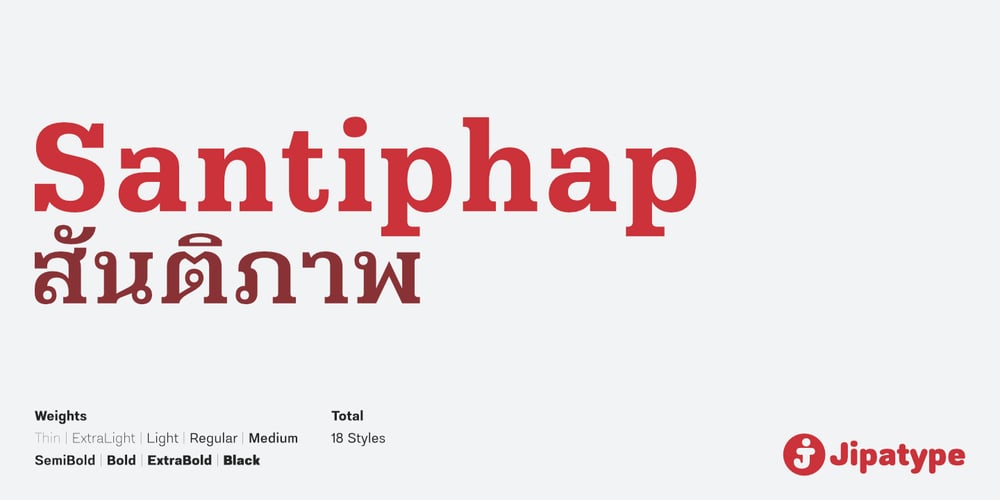
Santiphap
Santiphap font
Santiphap Font Family was designed by Anupap Jaichumnan and published by Jipatype. Santiphap contains 18 styles and family package options. Santiphap is a slab serif typeface designed to support both Thai and Latin-1 character sets. It features distinctive Thai loop heads. The font family offers 18 styles, ranging from Thin to Black weights, providing versatility for various design applications. Santiphap’s formal style makes it suitable for professional and official documents, while its range of weights allows for hierarchy and emphasis in typesetting.